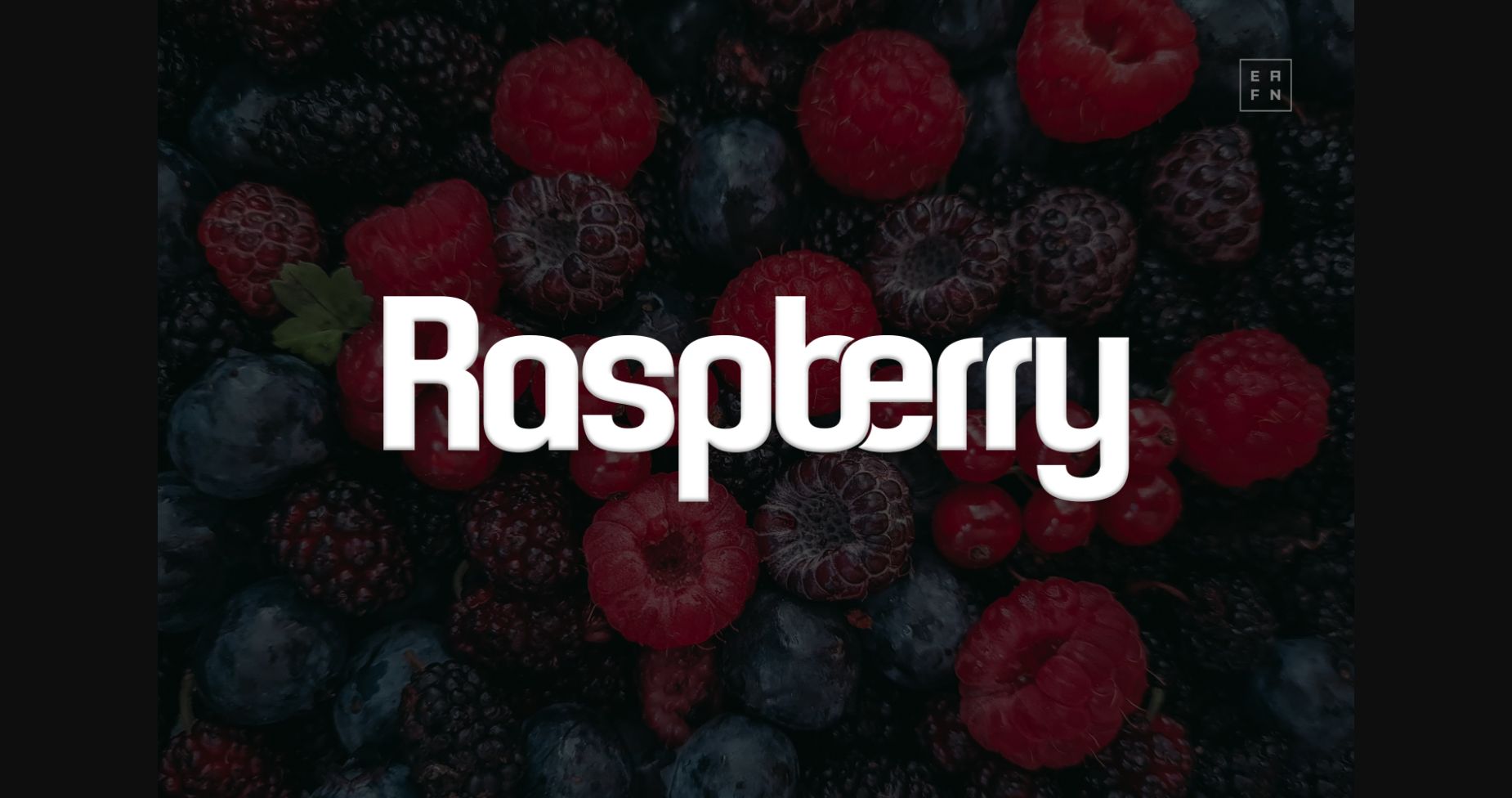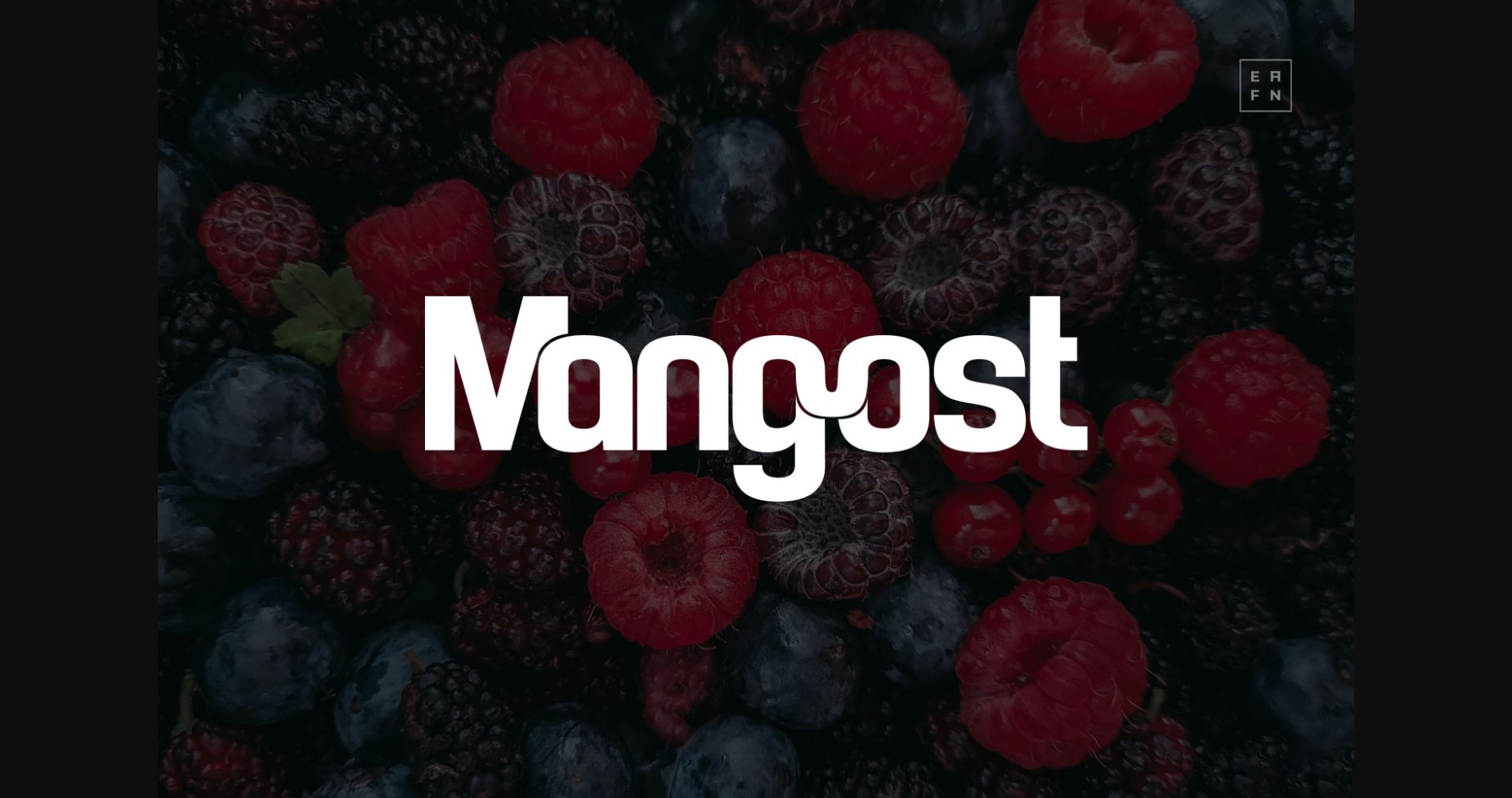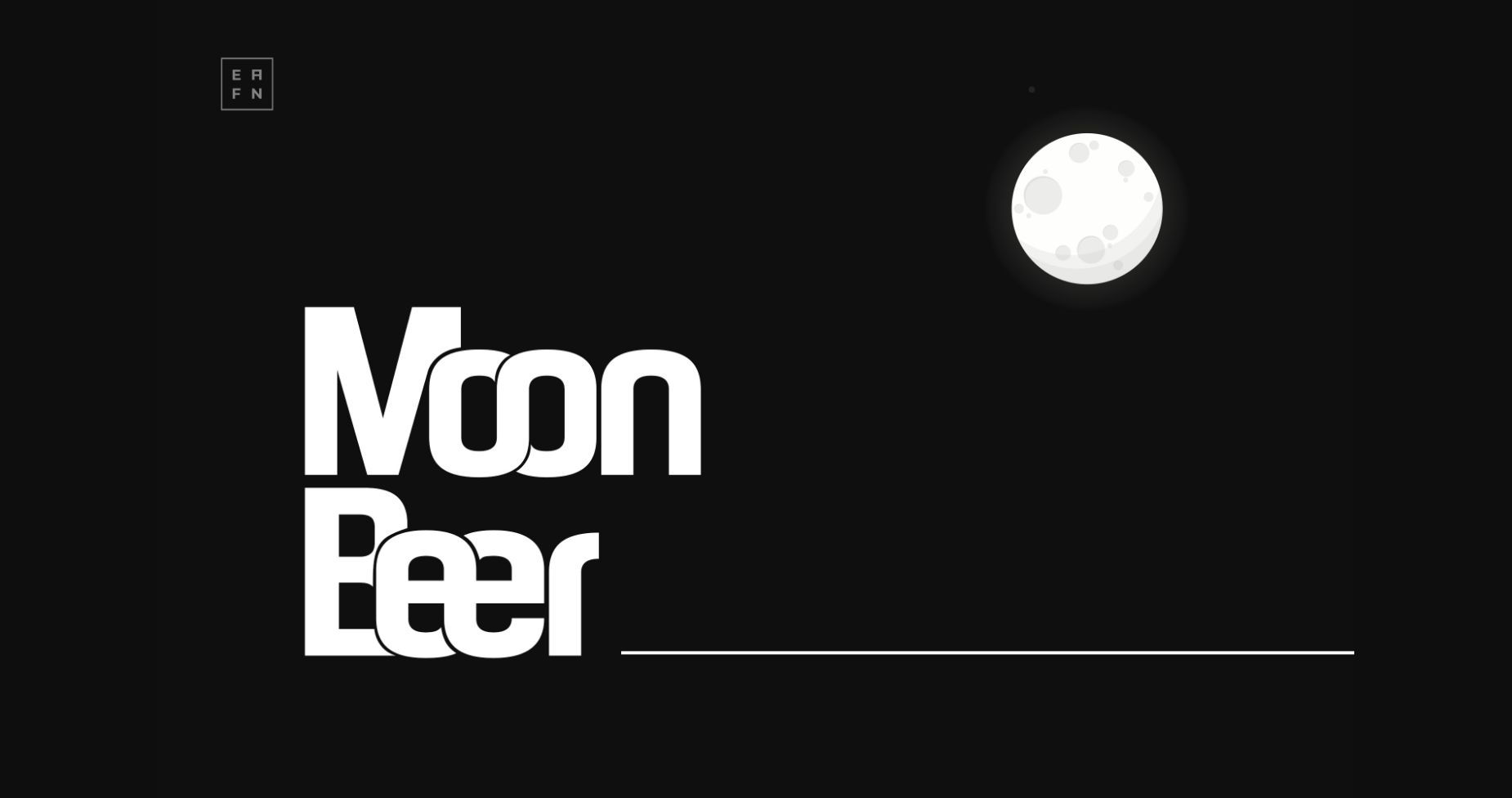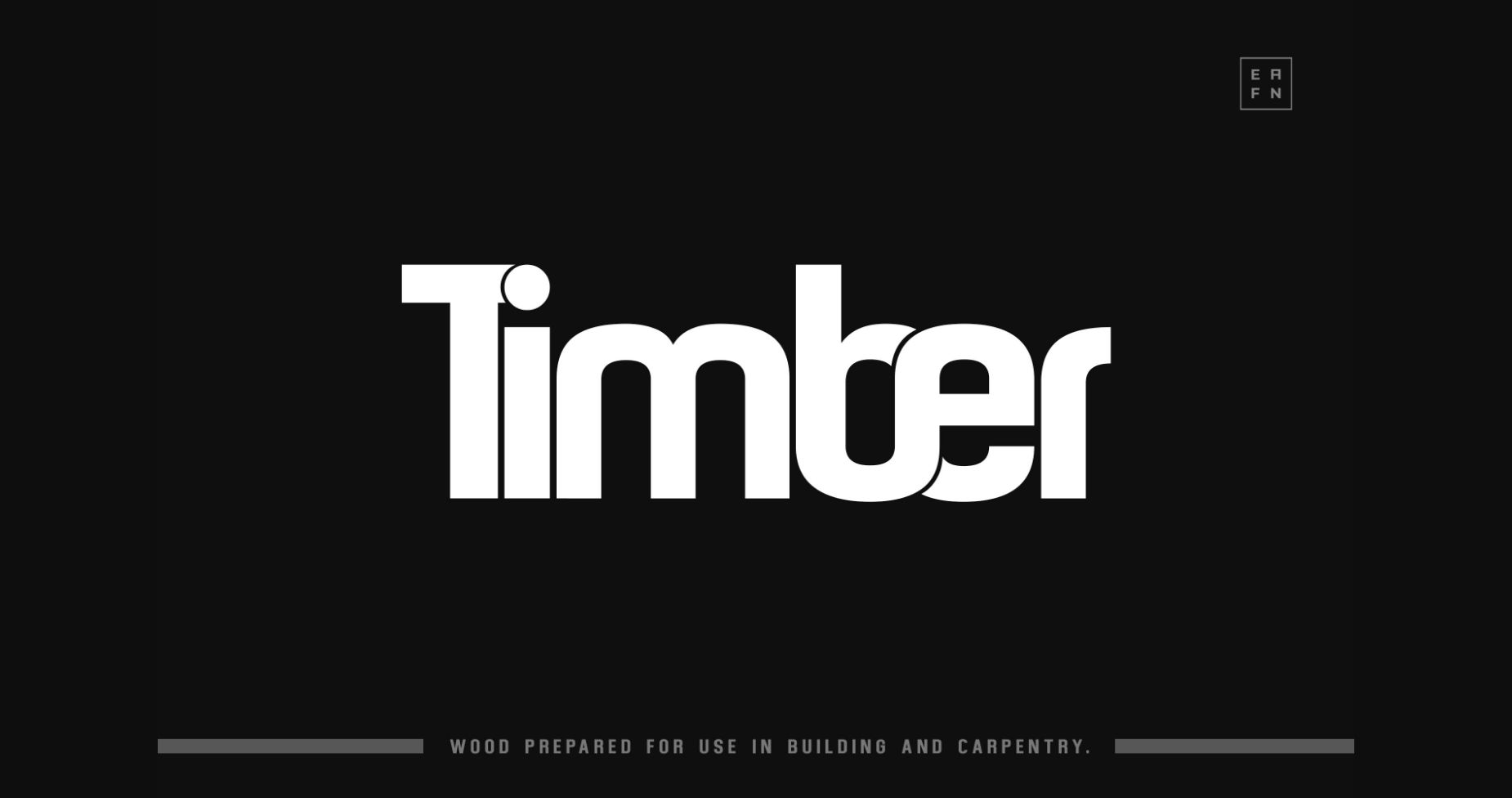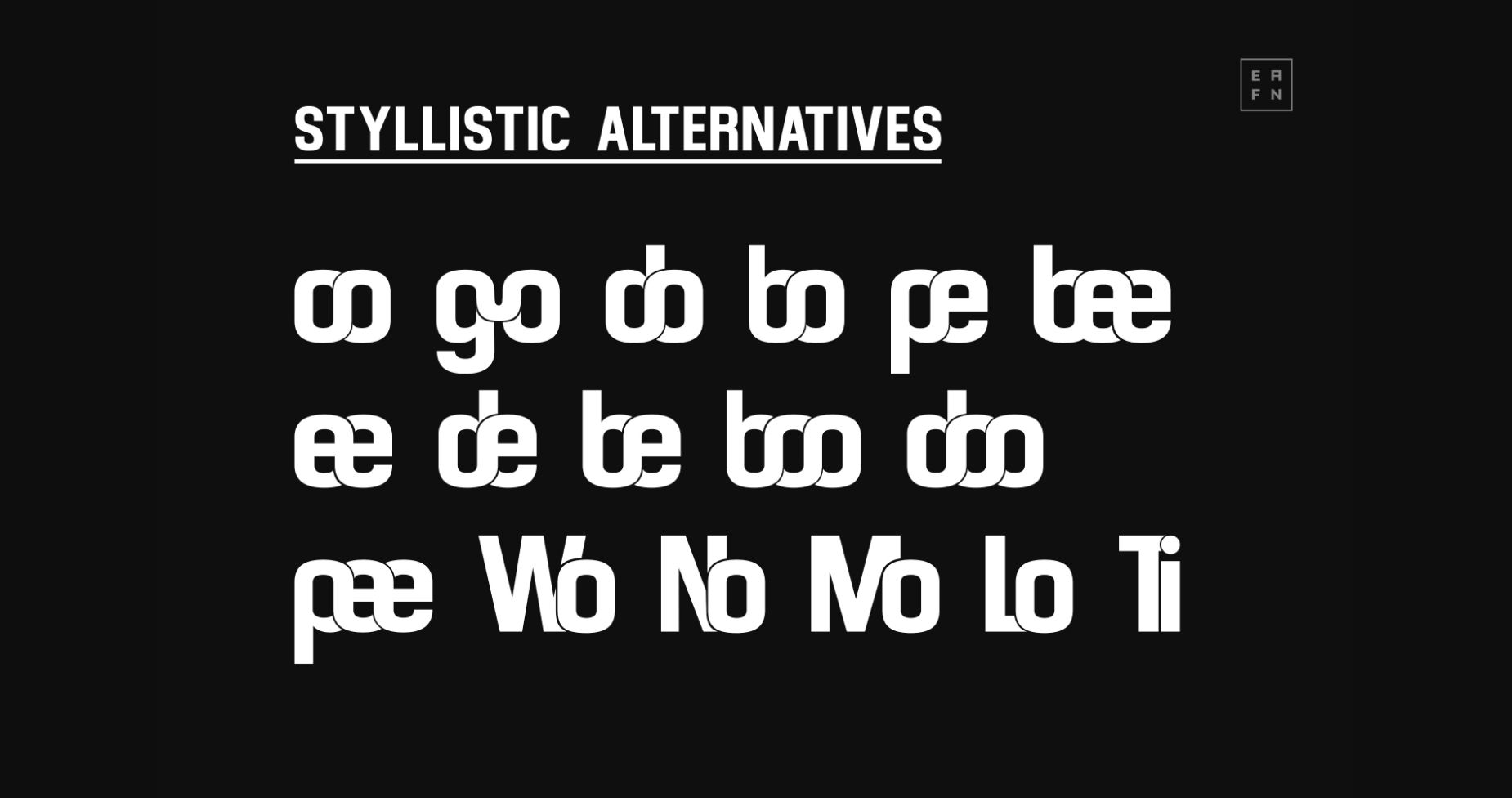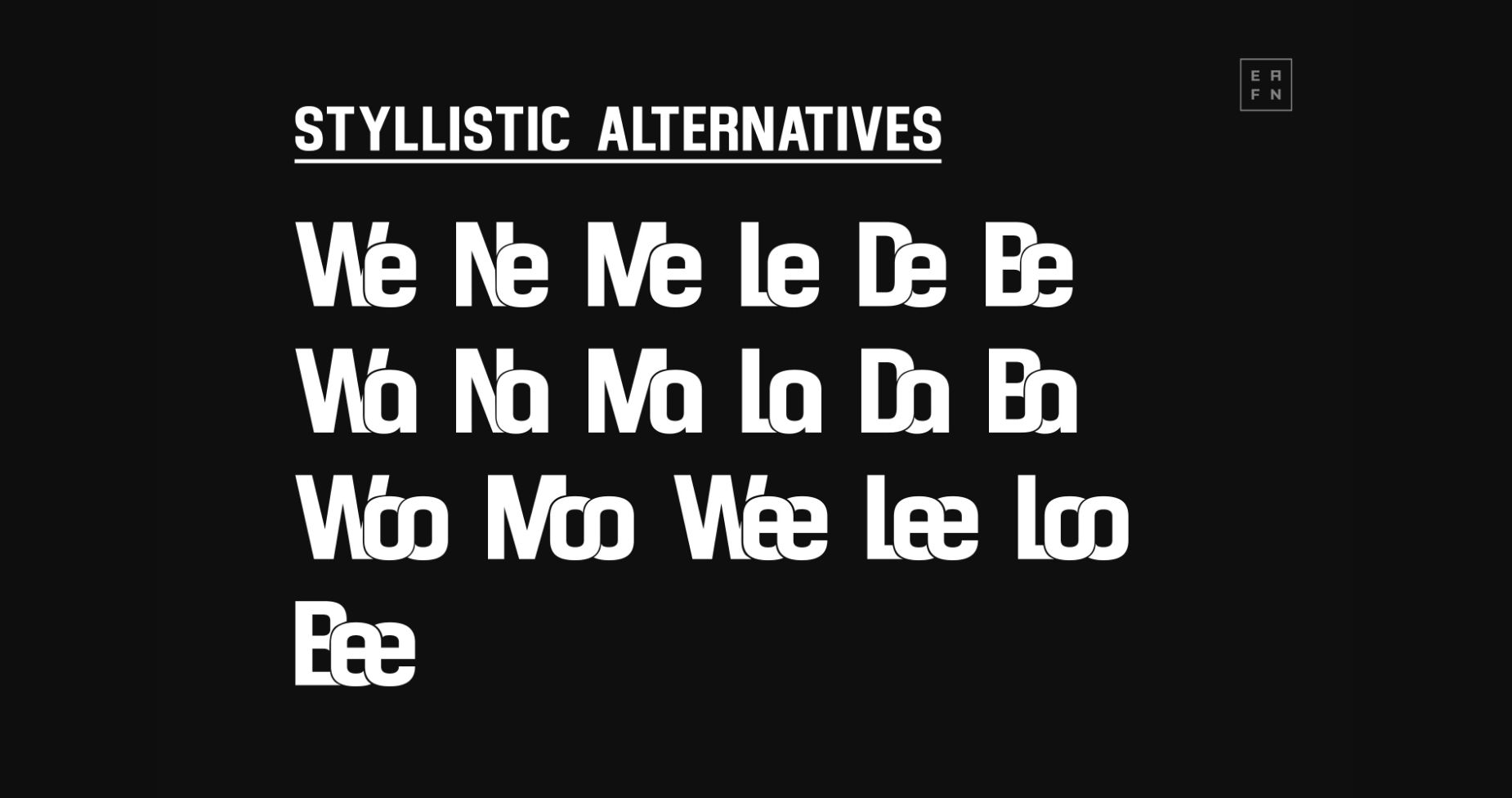
HomeSans Serif FontsRaspberry Font Sans Serif Fonts Raspberry Font FacebookXPinterestWhatsApp 1 of 8 ... Raspberry Font Poster 2... Raspberry Font Poster 3... Raspberry Font Poster 4... Raspberry Font Poster 5... Raspberry Font Poster 6... Raspberry Font Poster 7... Raspberry Font Poster 8... About Raspberry Font Raspberry is a casual sans serif font. Simple and easy to use, this font will be very beautiful if you mix it with your various craft designs. DOWNLOAD NOW People also explored Shine Font Alrighton Font Soft Garden Martines Font Granko Font Market Font Playful Font Hontizema Font Cuteline Font 406 0 TagsRaspberry Font Previous articleCottsmic FontNext articleRoutine Font LEAVE A REPLY Cancel reply Comment: Please enter your comment! Name:* Please enter your name here Email:* You have entered an incorrect email address! Please enter your email address here Website: Save my name, email, and website in this browser for the next time I comment. Personal Use Free Wanita Cantik Personal Use Free Read more about this font Choco Shake Font Personal Use Free Read more about this font Shnobel Personal Use Free Read more about this font Love Baby Personal Use Free Read more about this font BLOG Exploring Font Trends Shaping Communication in the Digital Era Fonts, like all design elements, are subject to trends. They play a crucial role in communicating a brand's personality,... To increase your work productivity, choose the most readable fonts. Free vs Paid Fonts: Why Investing in Premium Fonts Is Worth It Elegant Wedding Invitation Fonts – Handwritten & Script Fonts